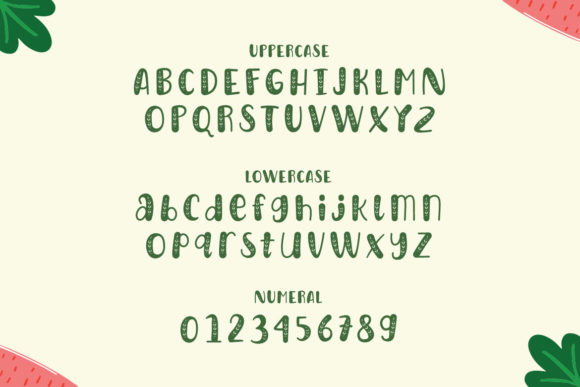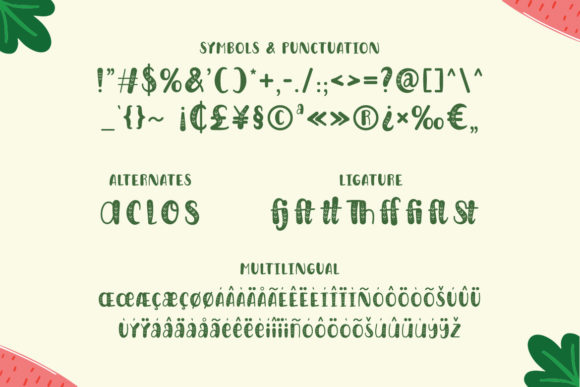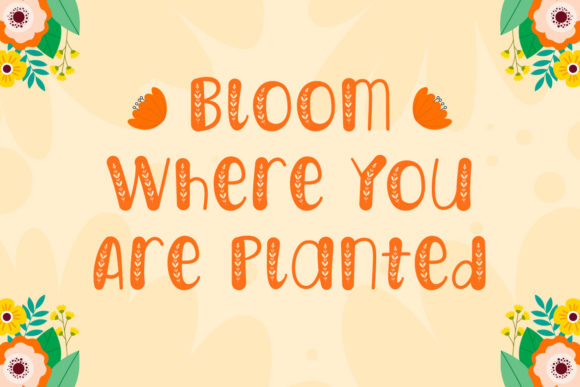
Introduction to Harvest Day Font
Imagine yourself amidst a bustling craft fair, surrounded by vibrant colors and unique designs. As you browse through the stalls, you stumble upon a beautifully crafted card featuring a stunning font that catches your eye. The intricate details and elegant feel of the font transport you to a serene autumn landscape, and you can’t help but feel inspired. This is what the Harvest Day Font can do for your creative projects – it’s a game-changer.
For designers and crafters alike, the Harvest Day Font is a valuable addition to any design resource. With its high-quality design and transparent background, it’s perfect for adding a touch of sophistication to your labels, branding, and cards. And the best part? It’s available for a free download, making it an accessible and affordable design resource for creatives of all levels.
Whether you’re working on a personal project or creating designs for clients, the Harvest Day Font is sure to elevate your work and leave a lasting impression.
Key Features of Harvest Day Font
- High-quality design resource ideal for creative projects, including invitations, posters, and more.
- Unique, hand-drawn style with a transparent background, allowing for versatility and customization.
- Designed with a focus on legibility and readability, making it suitable for both digital and print applications.
- Perfect for adding a touch of whimsy and personality to creative projects, from weddings to harvest-themed events.
Honest Review: Harvest Day Font
As a designer, I’m always on the lookout for high-quality design resources that can elevate my creative projects. The Harvest Day Font is one such resource that caught my attention.
Here are some things that work well: ✨ It’s a free download, which is always a bonus. The font is also designed with a transparent background, making it easy to use with any background image or color. The style is playful and perfect for projects that require a rustic or vintage feel.
Some things to keep in mind: ⚠️ While the font is high quality, it’s not suitable for all types of projects. The style may be too whimsical for corporate or professional designs. Additionally, the font may require some adjustments to ensure it looks consistent across different font sizes and resolutions.
Overall, I think the Harvest Day Font is a great addition to any designer’s toolkit. It’s perfect for creative projects that require a unique and eye-catching style.
- Playful and vintage style
- Perfect for creative projects
How to Use Harvest Day Font
The Harvest Day Font is a high-quality design resource perfect for your creative project. This free download offers a unique and elegant style, ideal for various applications. With its transparent background, you can easily overlay it on any image or design.
Tips for Getting the Most Out of Harvest Day Font
To get the most out of the Harvest Day Font, consider the following tips:
- Experiment with different font sizes and styles.
- Combine the font with other design elements to create a unique look.
- Use the transparent background to create a subtle, layered design.
The Harvest Day Font is perfect for:
- Wedding invitations and stationery.
- Food and beverage branding.
- Event and festival promotions.
The Happy Harvest Font is a high-quality, free download design resource ideal for creative projects that require a playful and vibrant feel. It features a transparent background, making it perfect for overlaying on images or videos. When to use: For projects that need a cheerful and uplifting tone, such as advertisements, social media graphics, or children’s products. It compares to Harvest Day Font by having a similar whimsical feel but with a more pronounced and exaggerated design.
2. Harvest Time Script Font
The Harvest Time Script Font is a beautiful, handwritten font that evokes a sense of nostalgia and warmth. It’s perfect for designers who want to add a personal touch to their creative projects. When to use: For projects that require a personal and intimate tone, such as wedding invitations, birthday cards, or family photo albums. It compares to Harvest Day Font by having a similar rustic feel but with a more elegant and refined design.